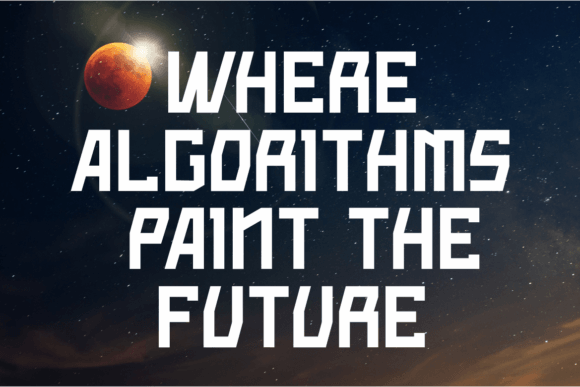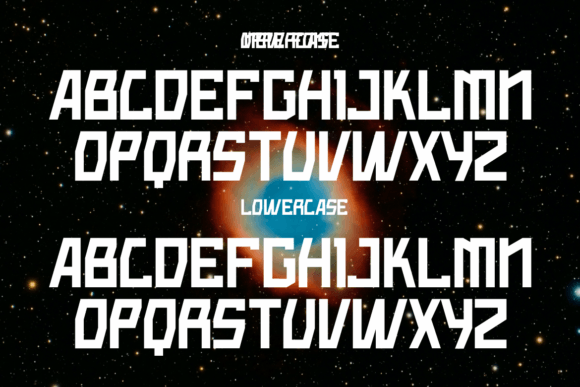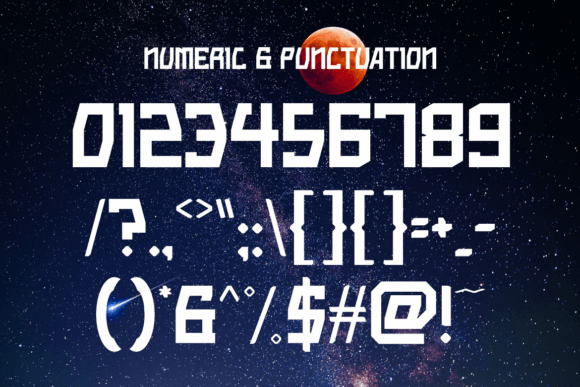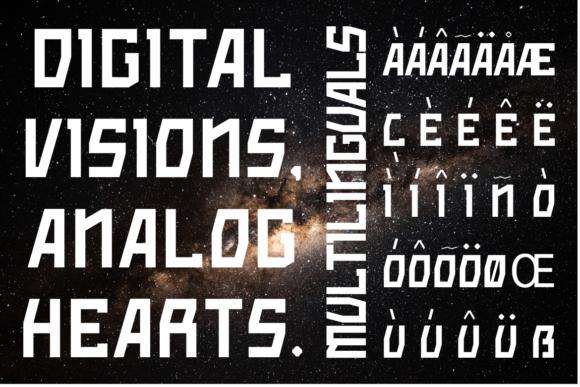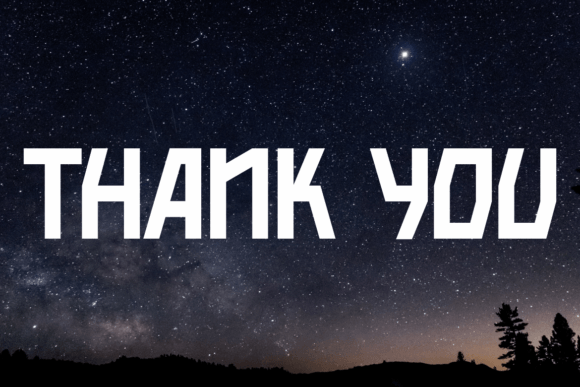
Introduction to Axeos Font
This Font is a type of lettering that features a futuristic design inspired by advanced technology.
Axeos reflects the digital era and technological advancements, bringing a sense of modernity, innovation, and energy to any design With sharp lines, geometric letter shapes, and futuristic elements, this font is suitable for projects related to technology, robotics, science, and modern lifestyle.
Key Features of Axeos Font
Why Choose Axeos Font?